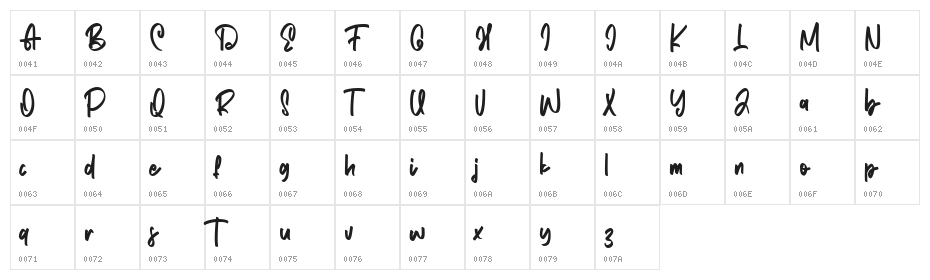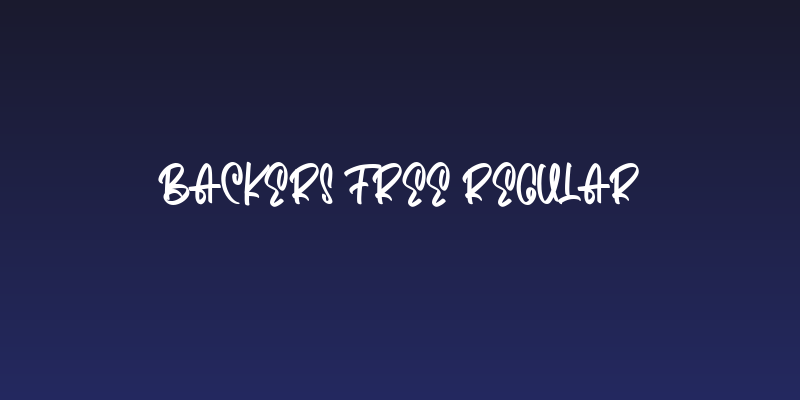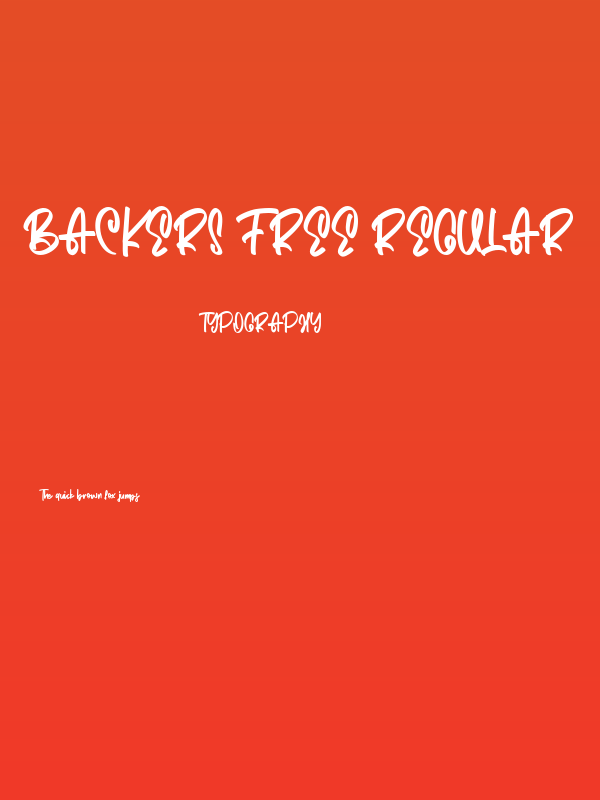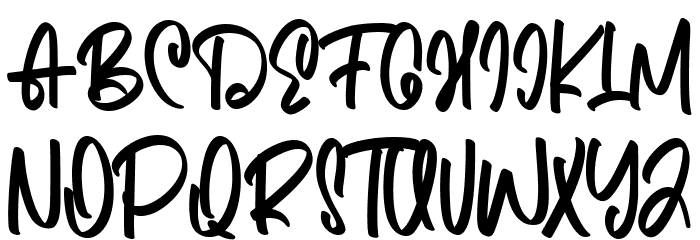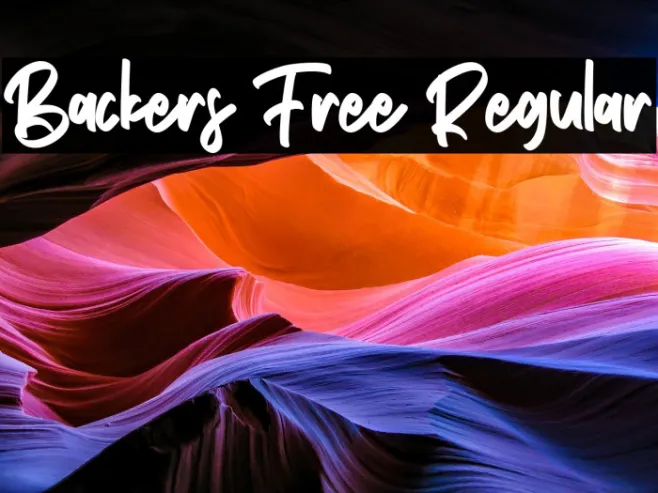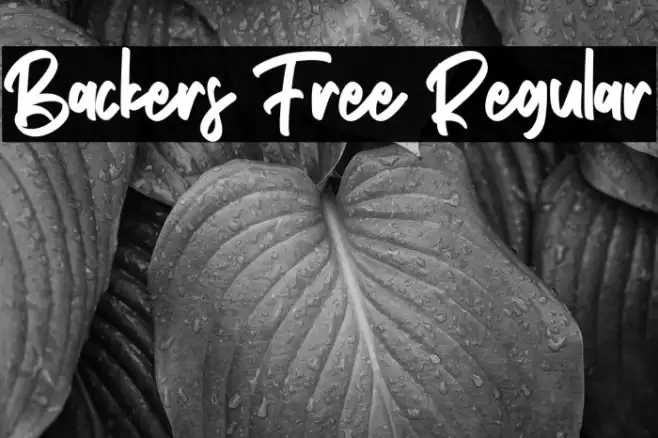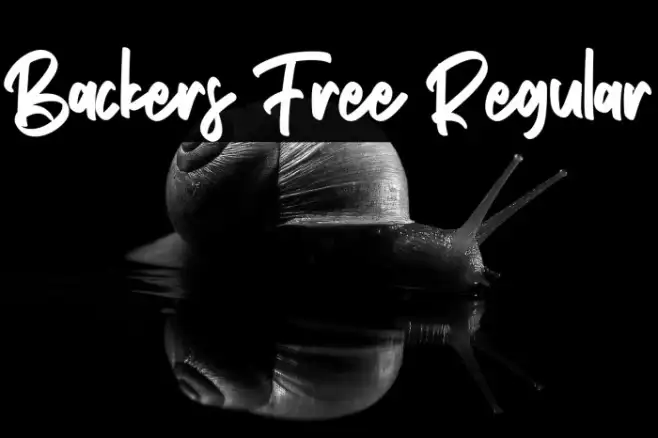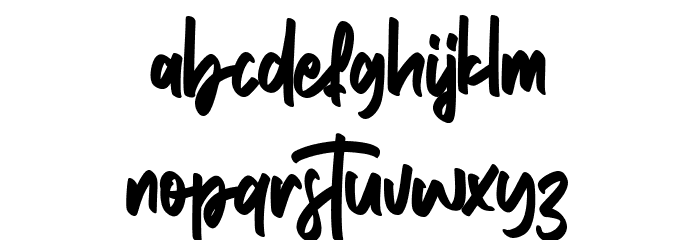
Backers Free Regular Font
Backers Free Regular Description
This font features a bold and expressive handwritten style, characterized by its fluid and dynamic strokes. The uppercase letters are tall and slightly condensed, giving a sense of elegance and modernity. The lowercase letters maintain a consistent flow, with smooth curves and a playful touch. The numbers and special characters are designed to complement the overall aesthetic, making it versatile for various design needs. Its unique style is perfect for creative projects that require a personal and artistic touch.
| Proposed Projects | Ideal for branding, invitations, posters, and social media graphics. |